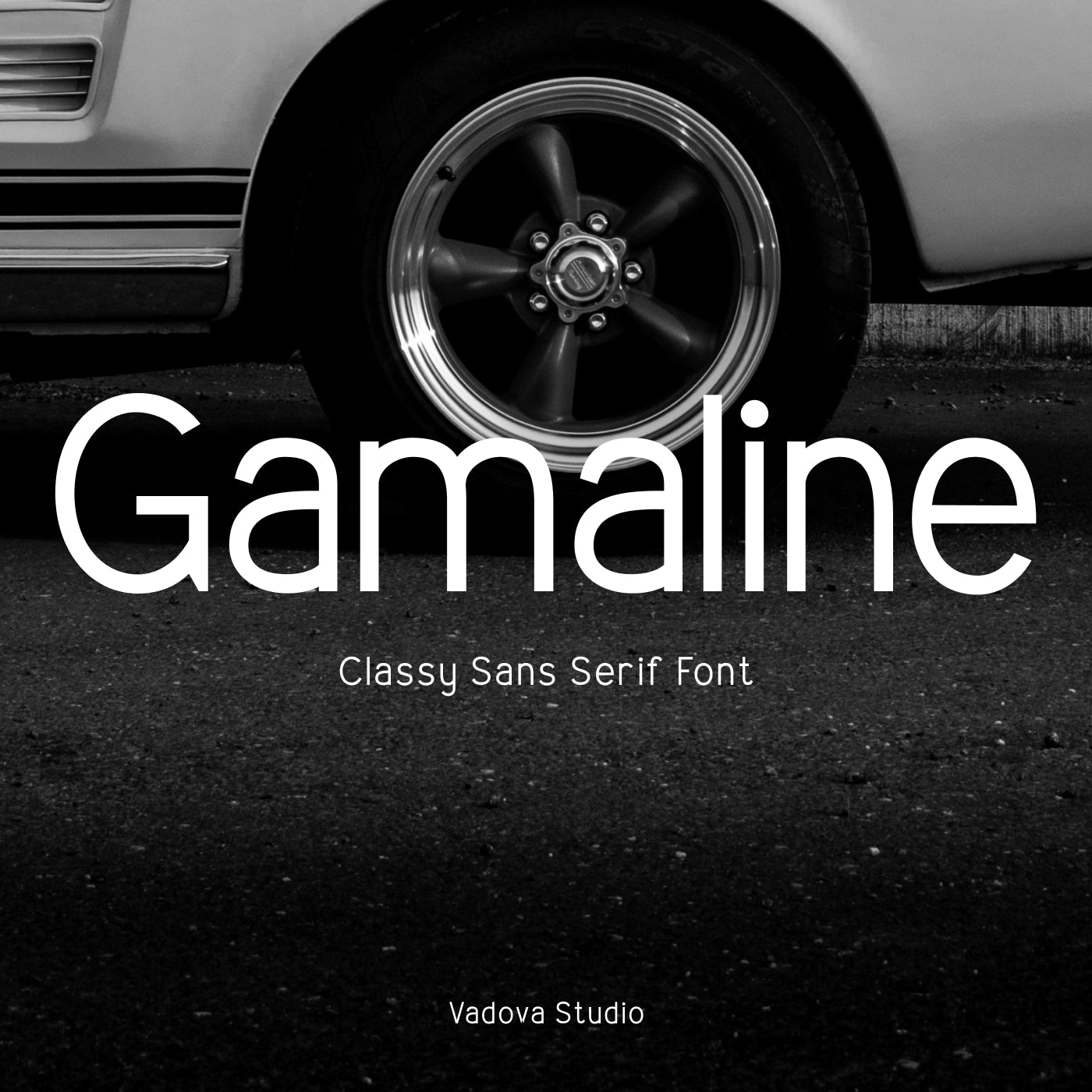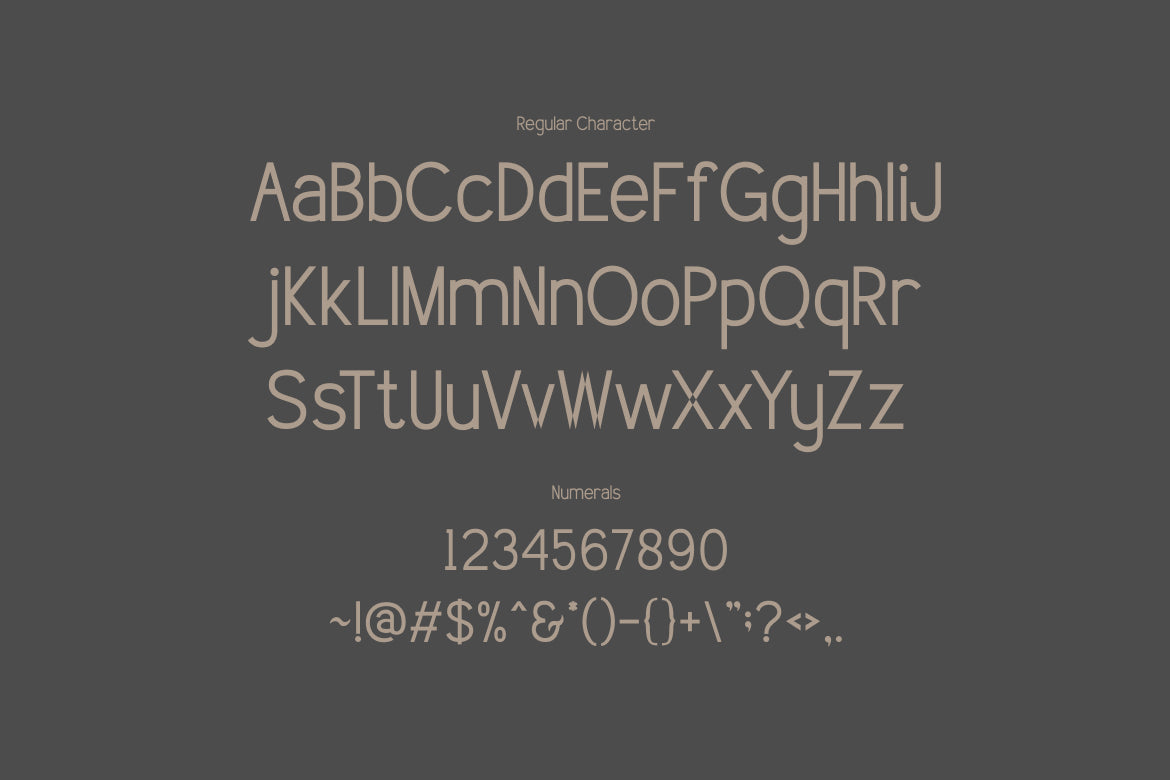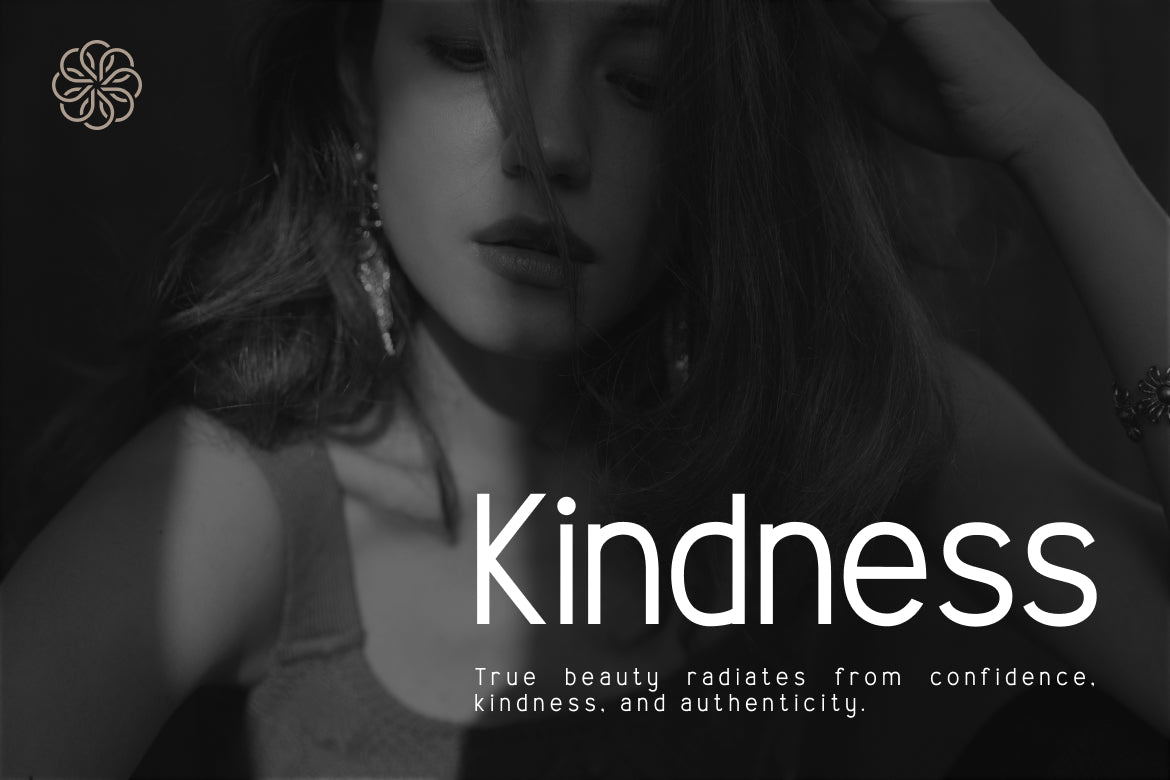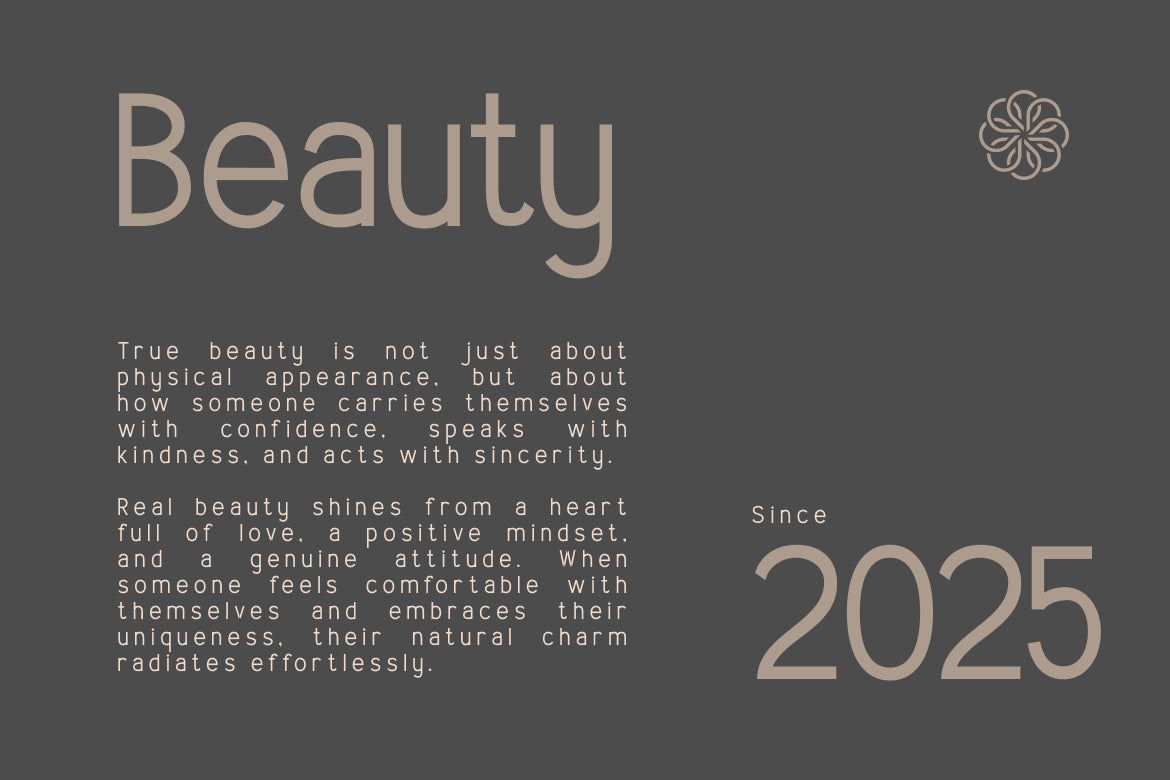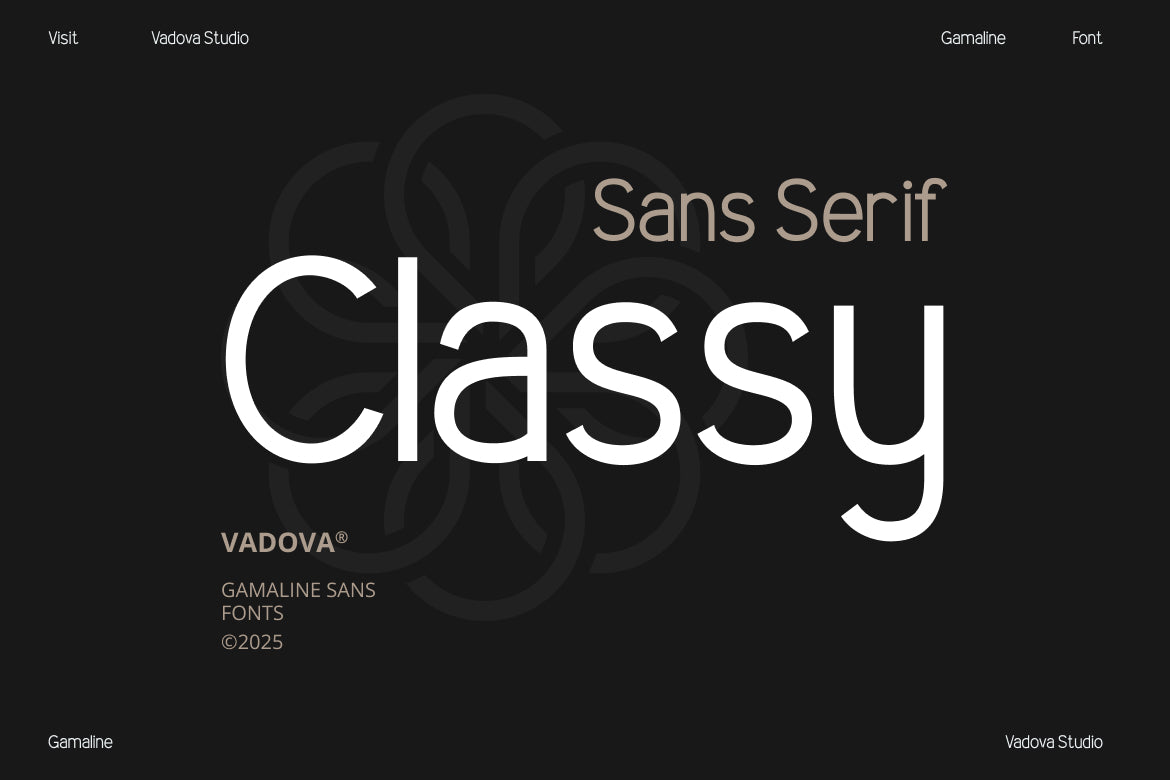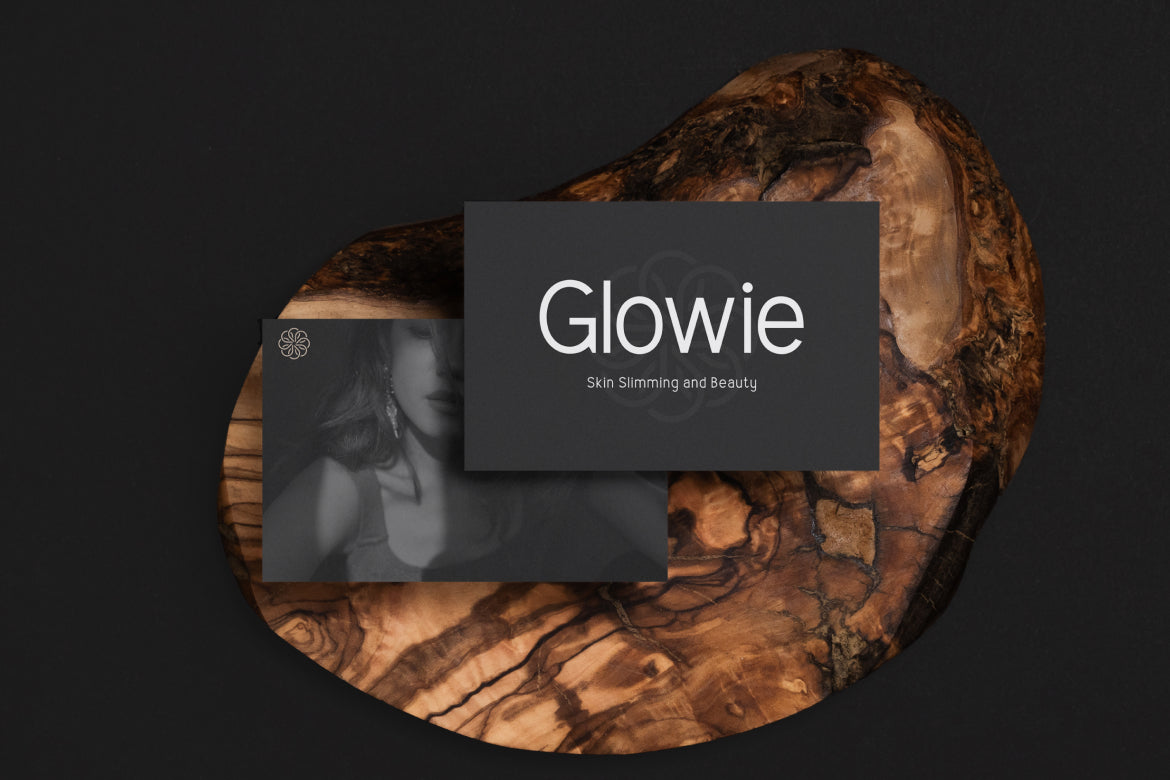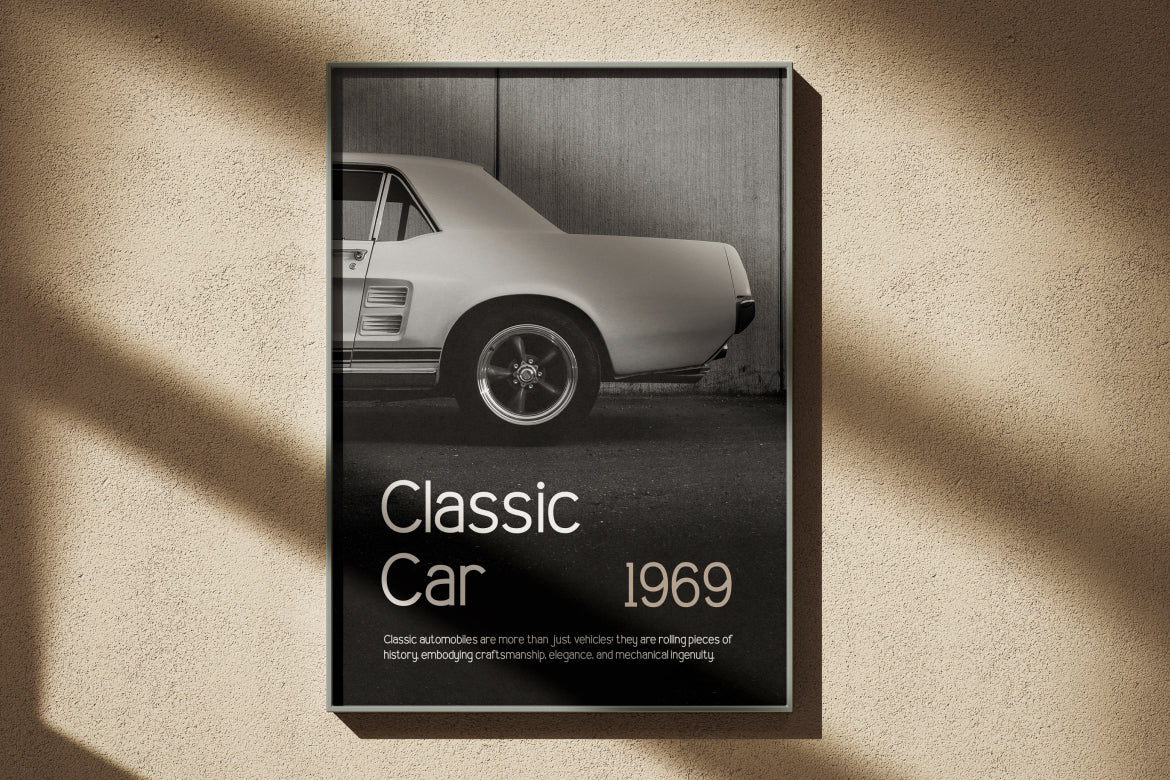
Gamaline Classy Sans Serif Font
Gamaline Classy Sans Serif Font delivers a refined and modern sans serif typeface with clean lines, balanced proportions, and a subtle elegant character. The design features smooth curves, consistent stroke weight, and a minimalist structure that enhances readability while maintaining a stylish and professional appearance. Includes uppercase, lowercase, numbers, punctuation, and provided in fully scalable formats for versatile design use. Built with a contemporary aesthetic that blends simplicity, clarity, and understated sophistication.
Relevance and Use Cases is perfect for corporate branding, modern editorial layouts, fashion branding, beauty campaigns, UI/UX design, website interfaces, portfolio presentations, social media content, and marketing materials that require a clean, elegant, and professional typographic style with strong readability and a contemporary visual tone.
Gamaline Classy Sans Serif Font is a clean, minimalist typeface with uppercase and lowercase characters, numerals, and punctuation, featuring consistent stroke weight and balanced proportions. It is available in TTF, OTF, and WOFF formats.